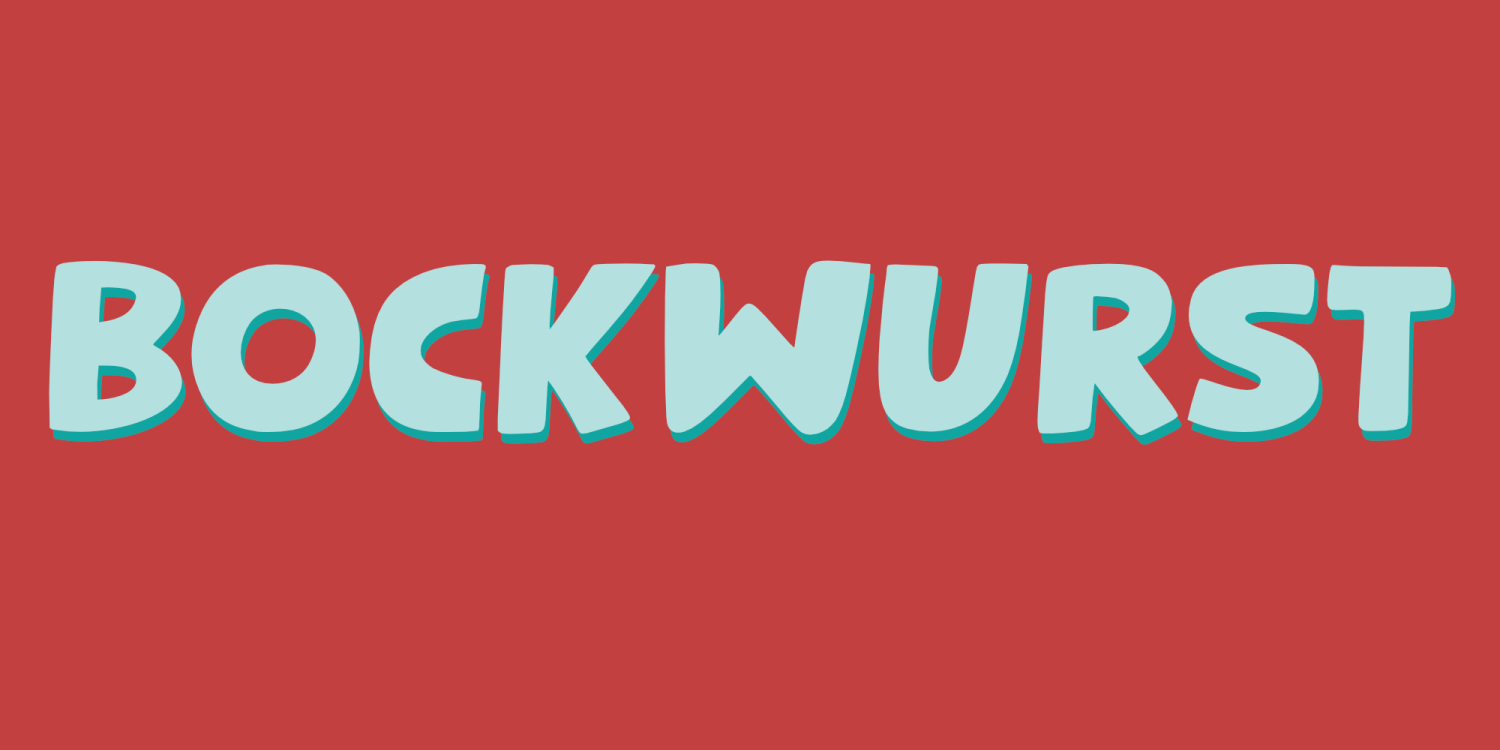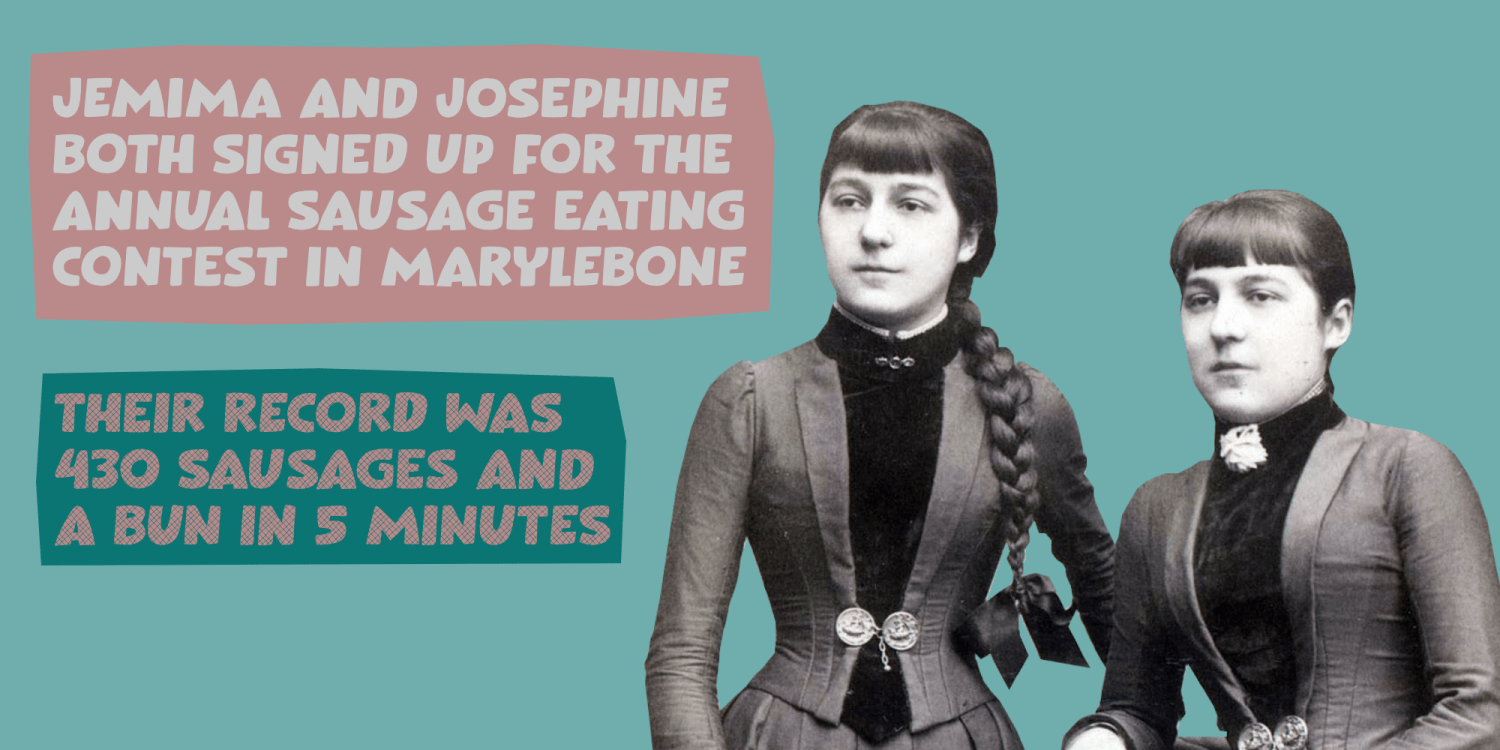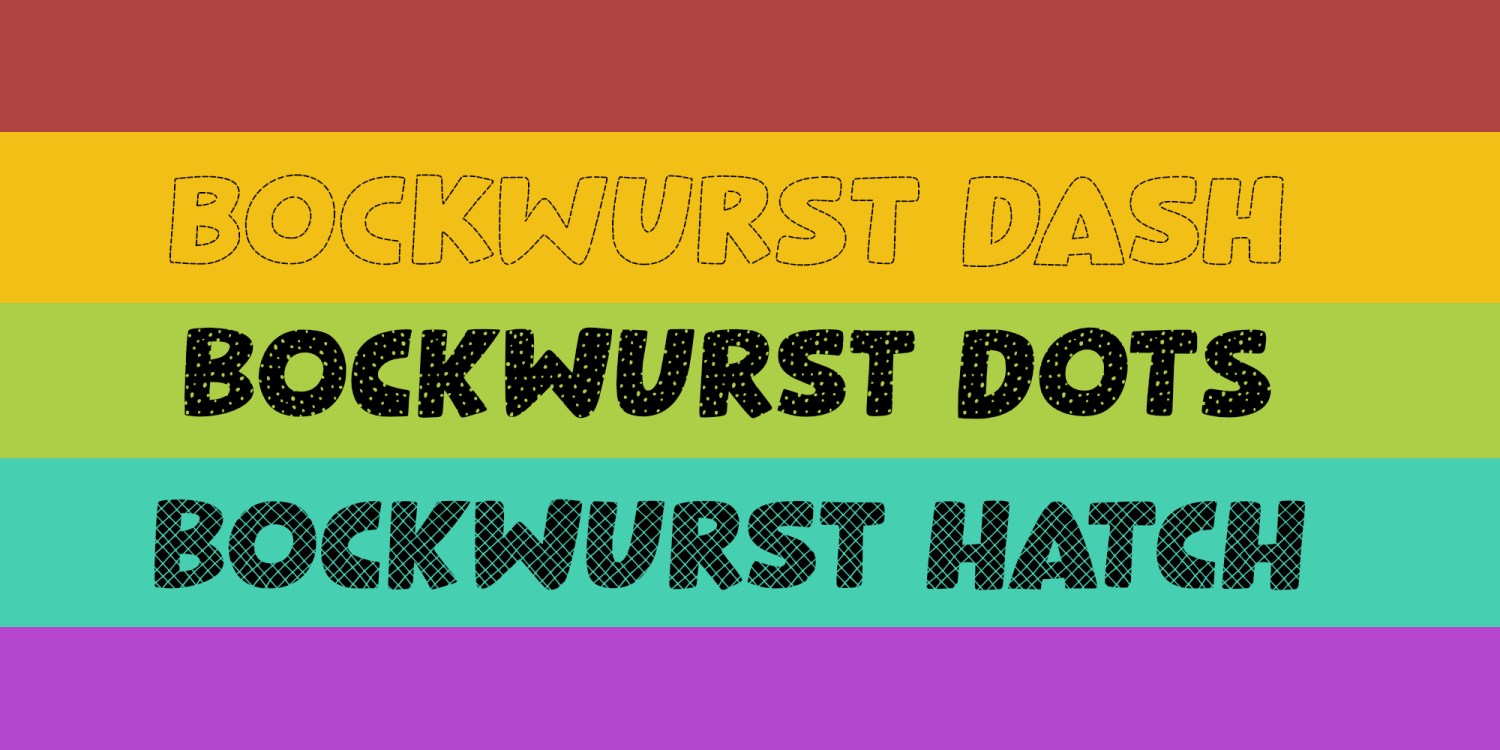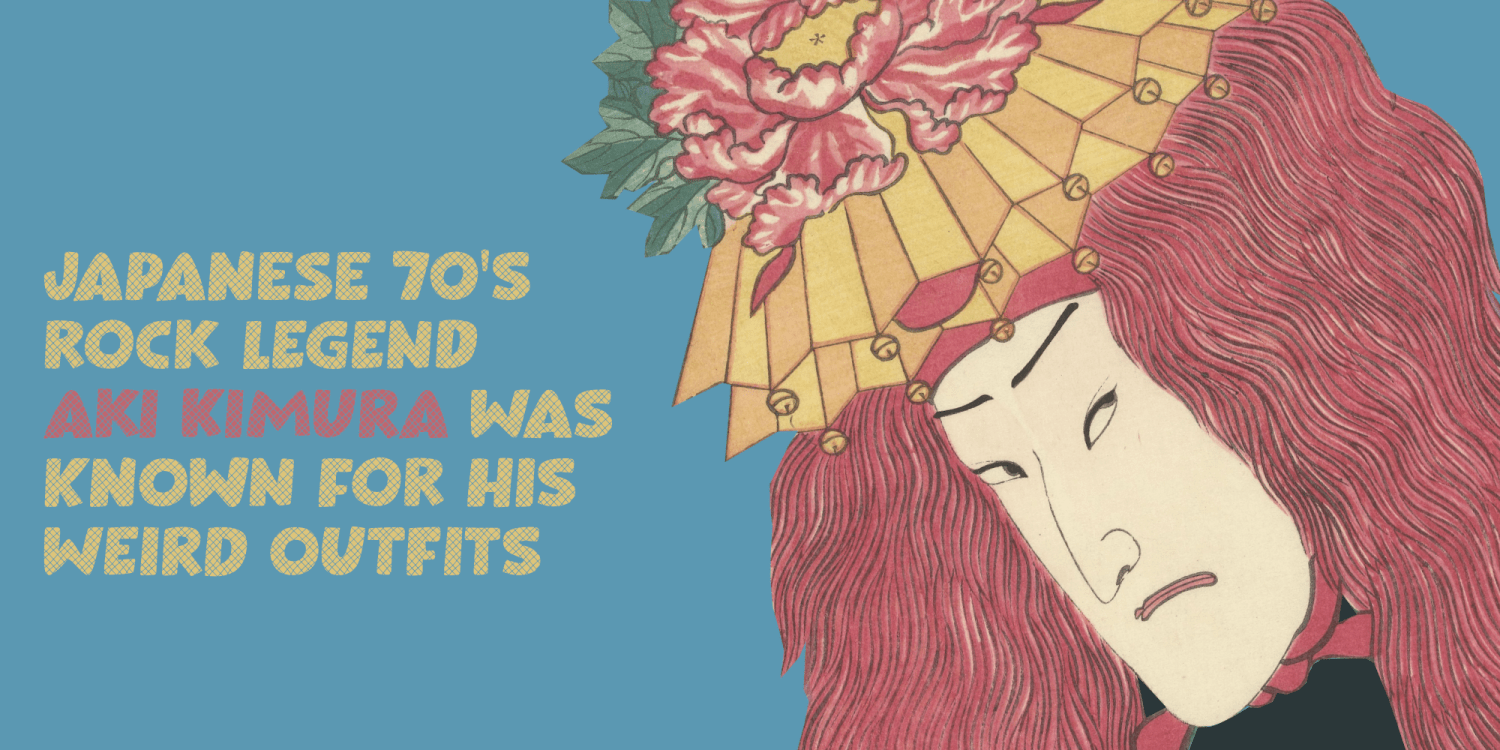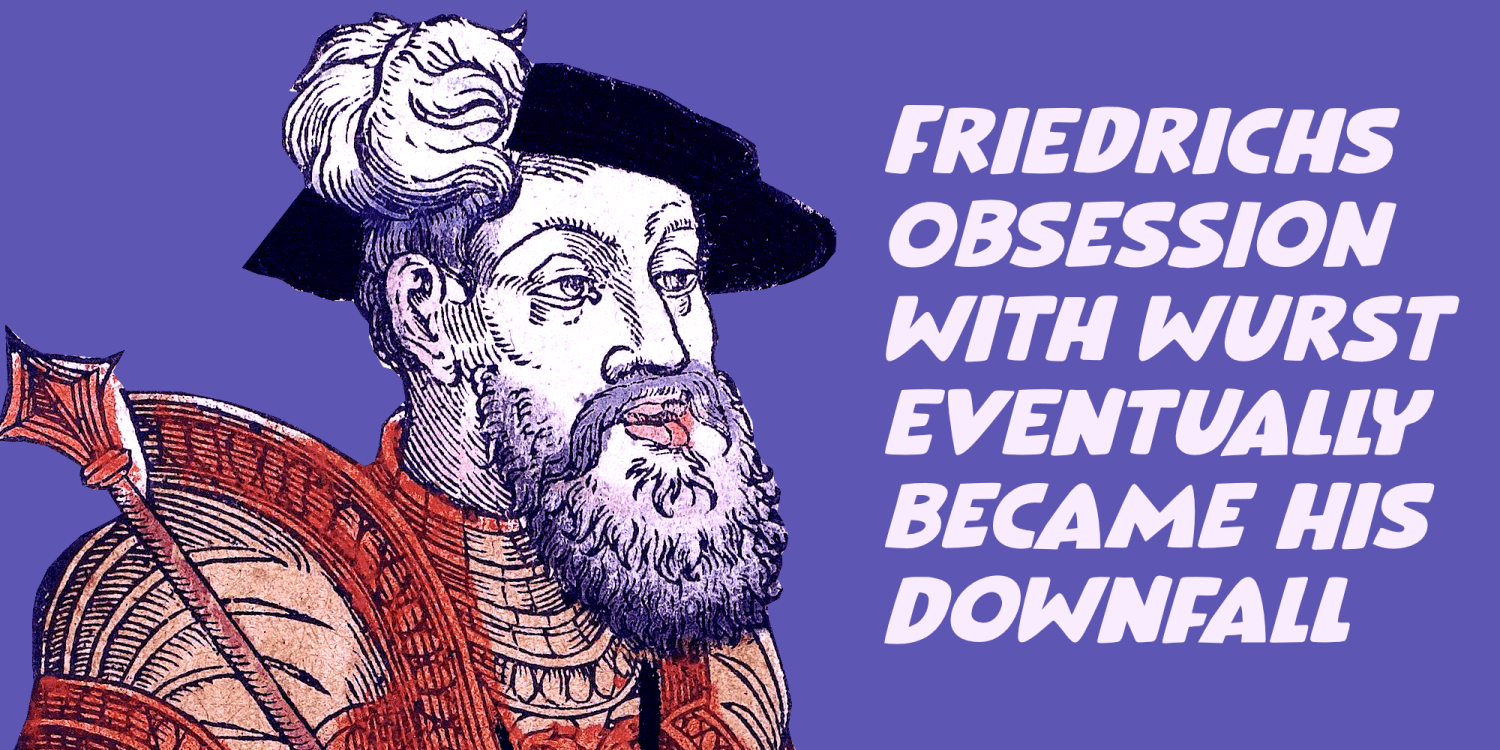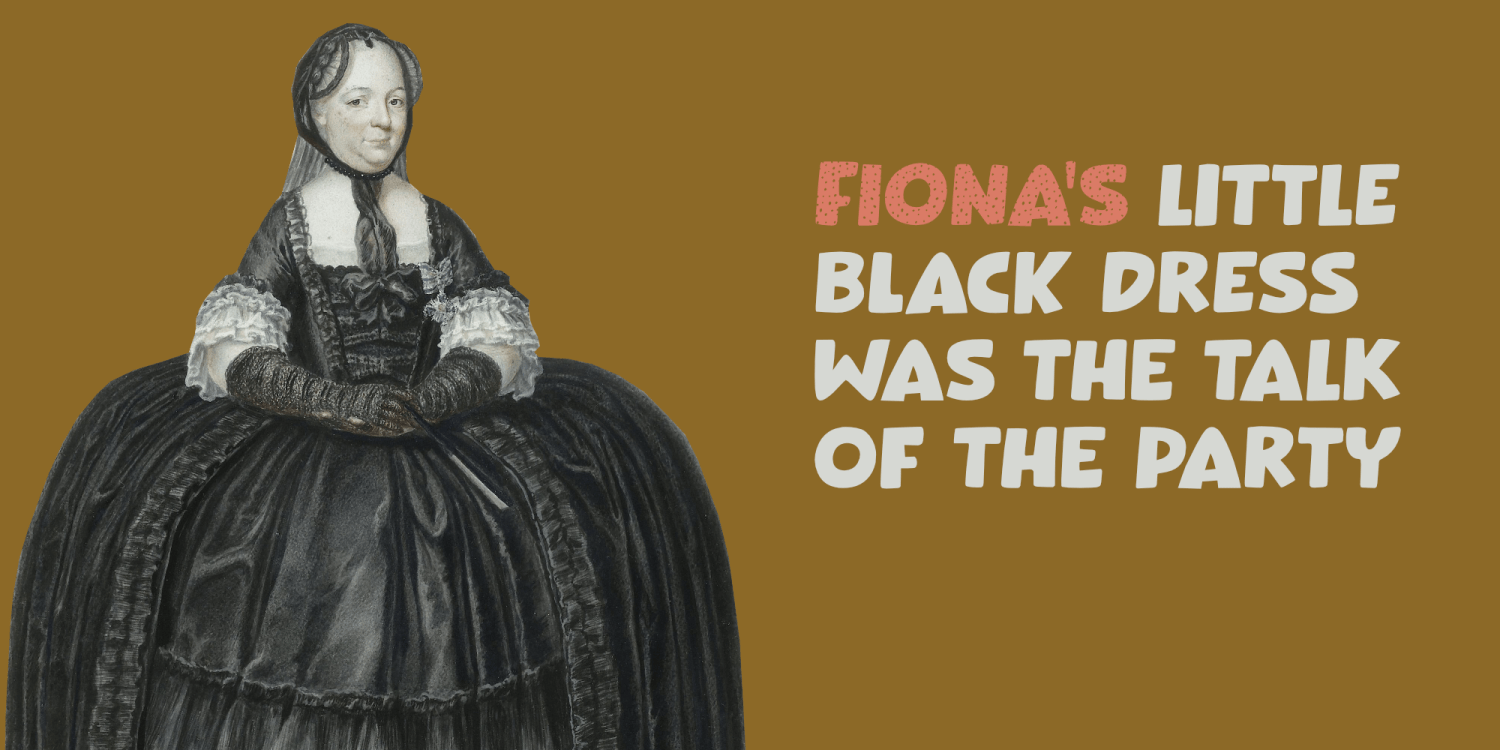
Bockwurst
Bockwurst is a type of German sausage, often made with veal or a combination of veal and pork. It is served with mustard and a bun, ot unlike a hotdog! I am not a great Bockwurst or Hotdog eater (processed meats are really bad for you, folks!), but I quite liked the name for this fat font I had designed.
Bockwurst font comes in several varieties: Bockwurst Dash, Dots and Hatch + their Italics, so you can really have a ball!